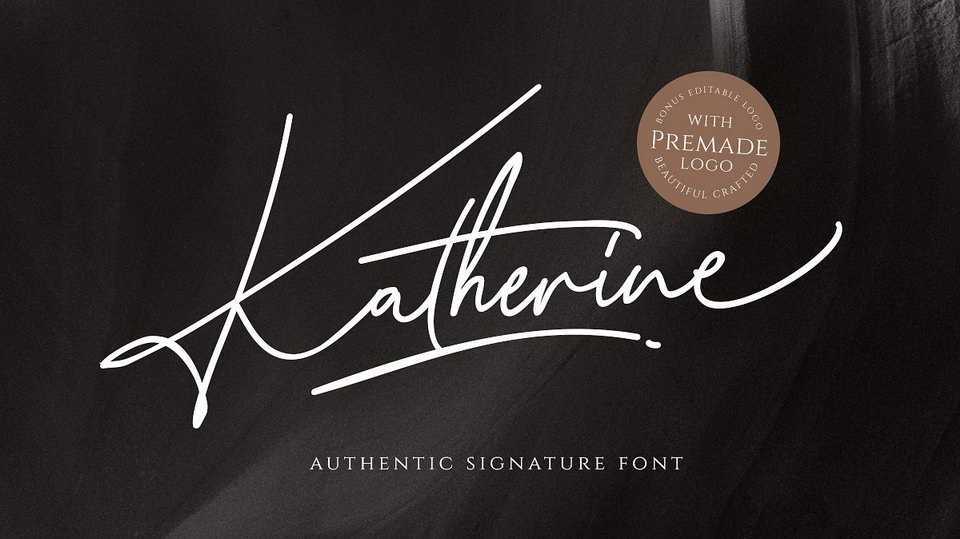
Download Katherine Script, a classy authentic signature font, suitable for logo branding, beautiful fashion design, suitable for wedding invitation, or handwritten quote.